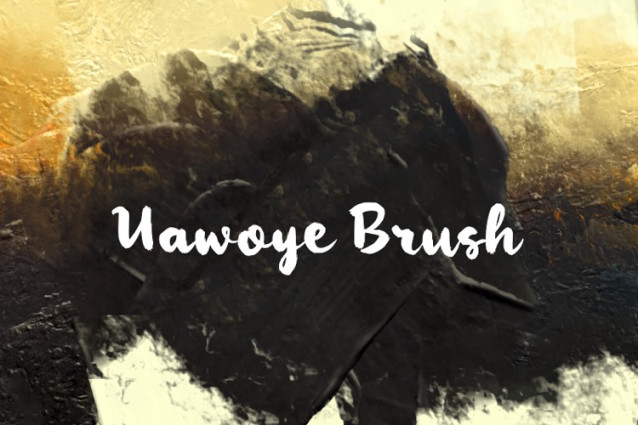
Uawoye Brush Font
Uawoye Brush Font, is a beautiful, textured handwritten brush font with a contemporary sensibility towards design. This font has a handmade, natural feel and is suitable for use in a wide range of works.